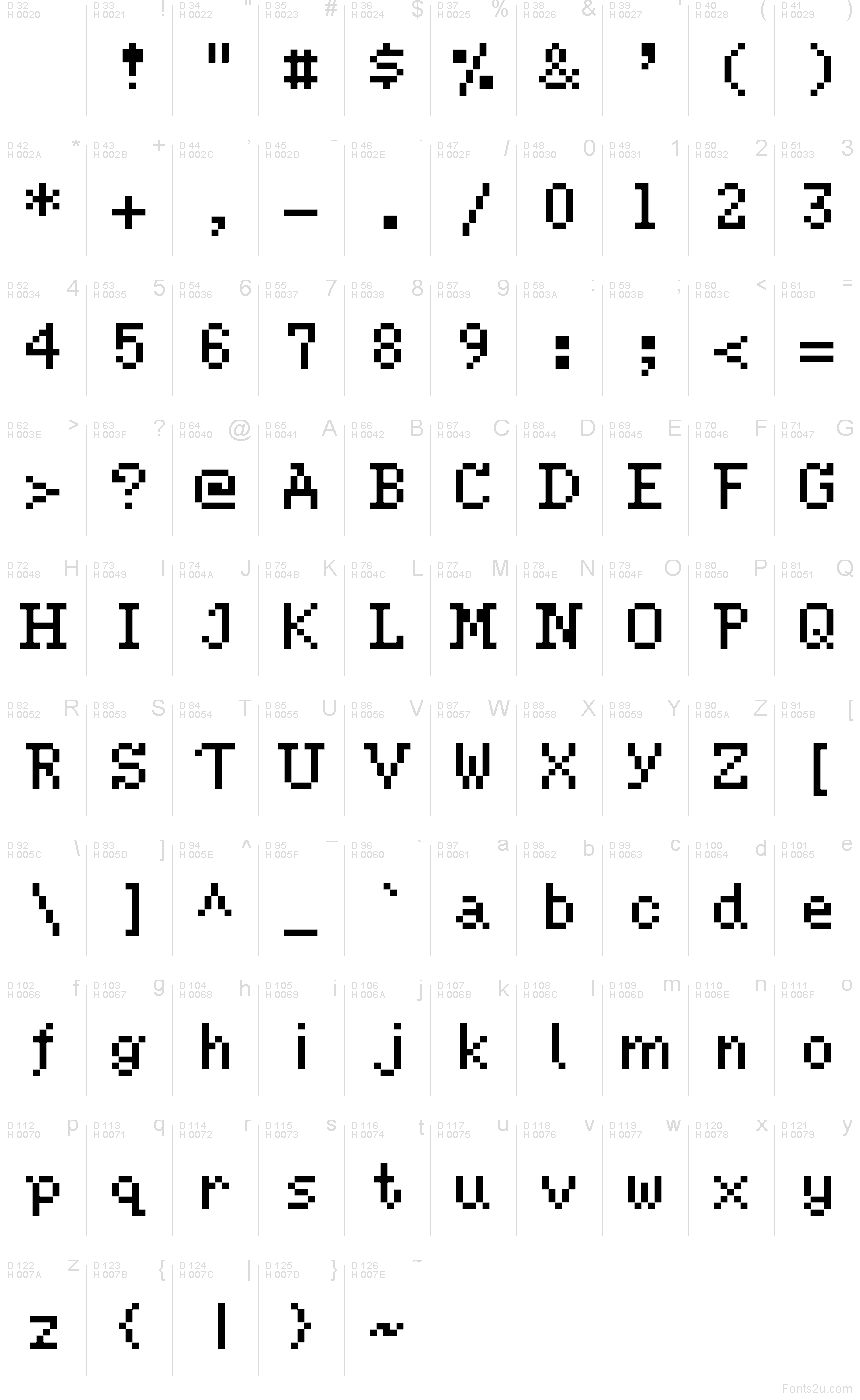
Cozy Quill by MagicBear is a free pixel display font built from stark, square-edged blocks. Its letters use abrupt steps, open gaps, and uneven silhouettes that recall early low-resolution screen graphics without settling into a strict grid.
It can turn a game title or event poster into part of an electronic interface, with the broken forms resembling symbols assembled on a primitive display. Album artwork and digital graphics also suit its glitchy construction, especially for chiptune, retro-computing, or experimental technology themes.